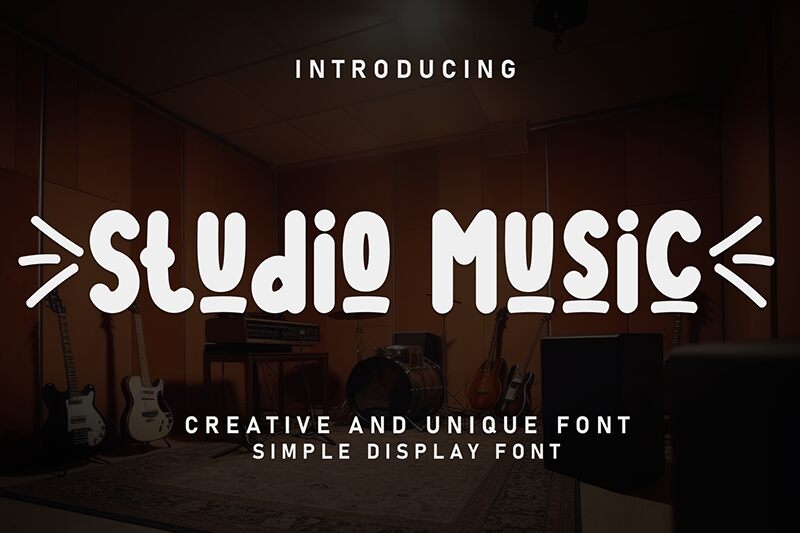
Studio Music
Studio Music font by Andi Moz is a handwritten condensed font with rounded edges that give it a friendly, approachable look. The designer was inspired by simplicity and modernity which gives Studio Music an authentic yet casual feel. This makes the font ideal for light design projects that require conveying fun, happiness, relaxation, and ease.